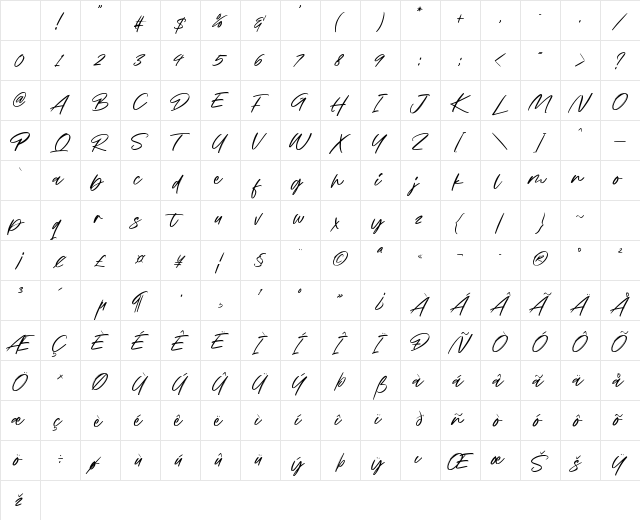
Complete Grand Paradiso Script Regular glyph index. Displaying only characters natively supported by Grand Paradiso Script Regular font.
Grand Paradiso Script flows with the natural rhythm of handwritten lettering, making it ideal for designs that call for warmth and personal expression.
Font Pairing: Combine Grand Paradiso Script with a simple geometric sans for maximum contrast - the tension between flowing curves and clean structure is a classic typographic pairing.
Pro Tip: Use Grand Paradiso Script for short runs of text - names, titles, or taglines. Extended body copy in script faces tires the eye quickly.